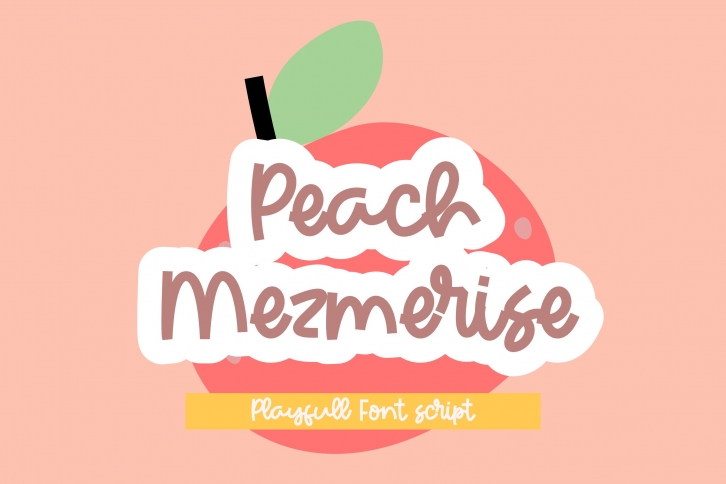
Peach Mezmerise is a beautiful font that was designed by Ongtype co. It's a great choice for designers and creatives who need such a font. It was released on April 23, 2021 and the file size is 8.98 MB. Peach Mezmerise may give a more youthful, expressive and casual look to your project. It is a very beautiful, refined, elegant, and high-quality font.